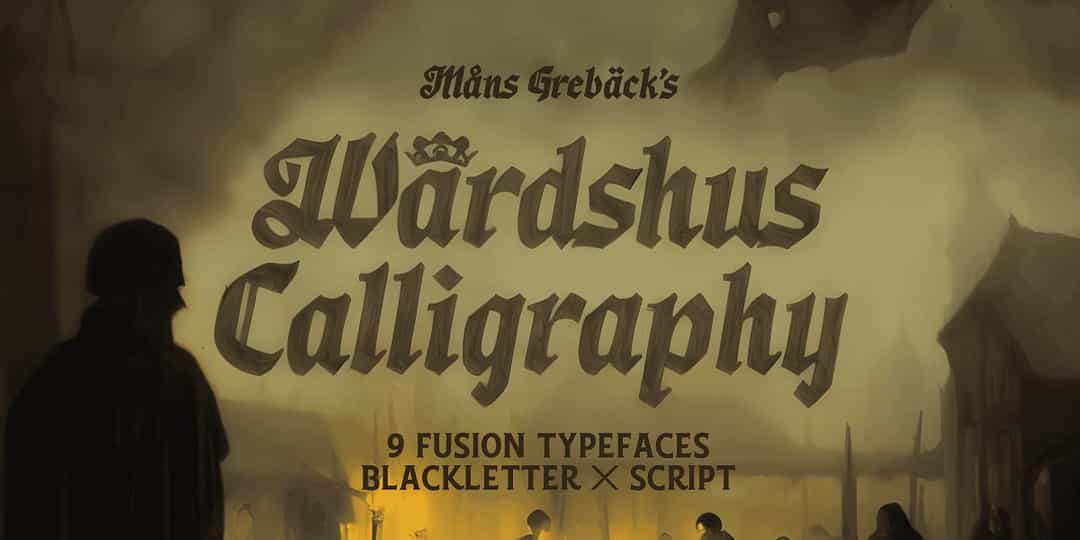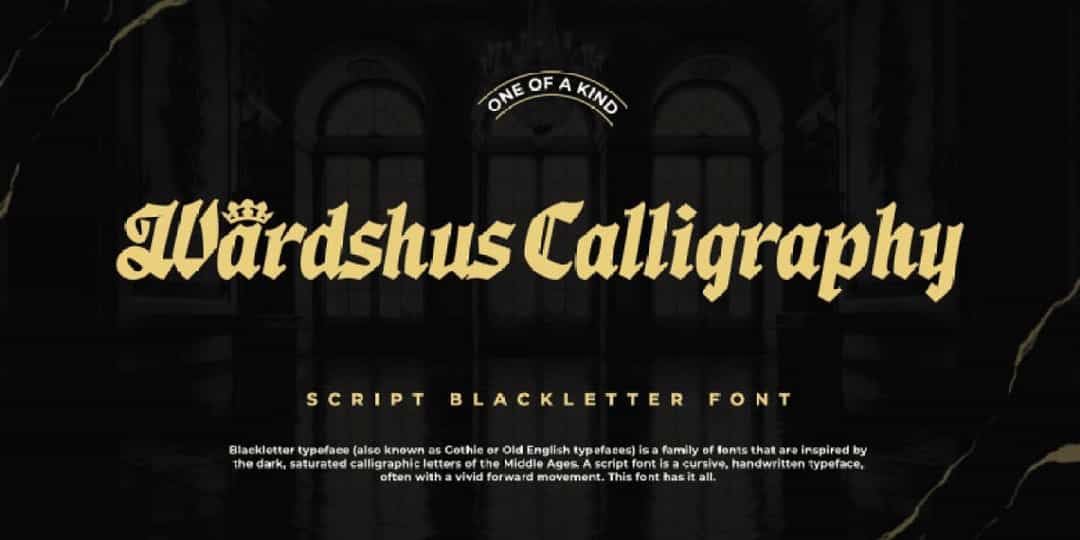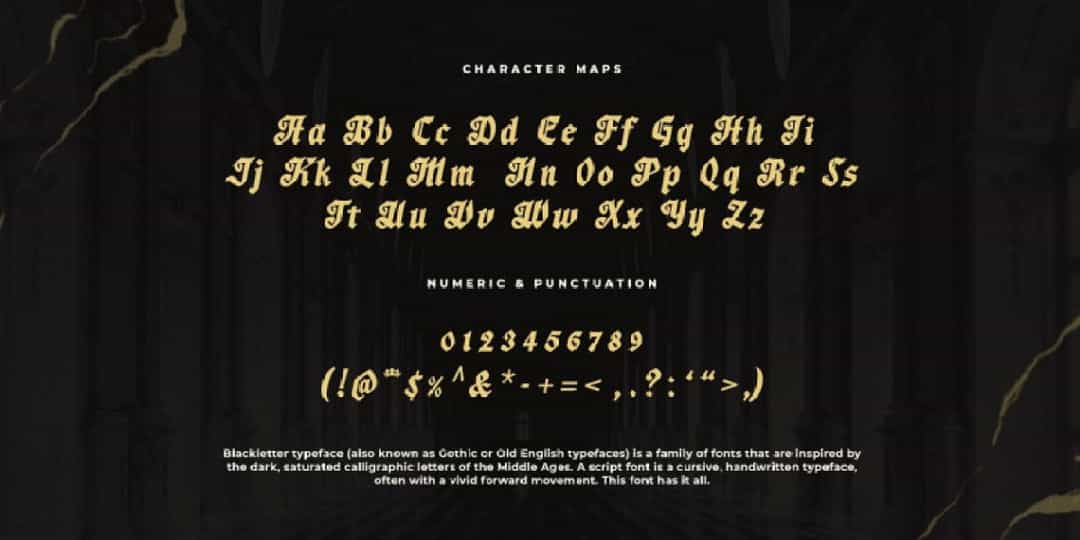
Wardshus Calligraphy is an elegant combination of Gothic design and contemporary script, creating an eye-catching blackletter font. The thick hand-drawn style adds a feel of medieval times to your project and is ideal for posters, logos and album covers requiring a distinctive appearance as well as other purposes where an attractive font would enhance its display.